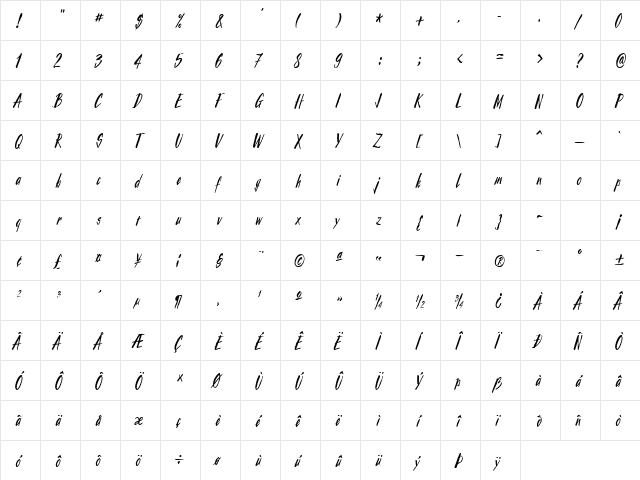
PlageTahiti Regular
Design Context for PlageTahiti Typeface
PlageTahiti is a composed and adaptable typeface that performs quietly and consistently across a wide range of design contexts.